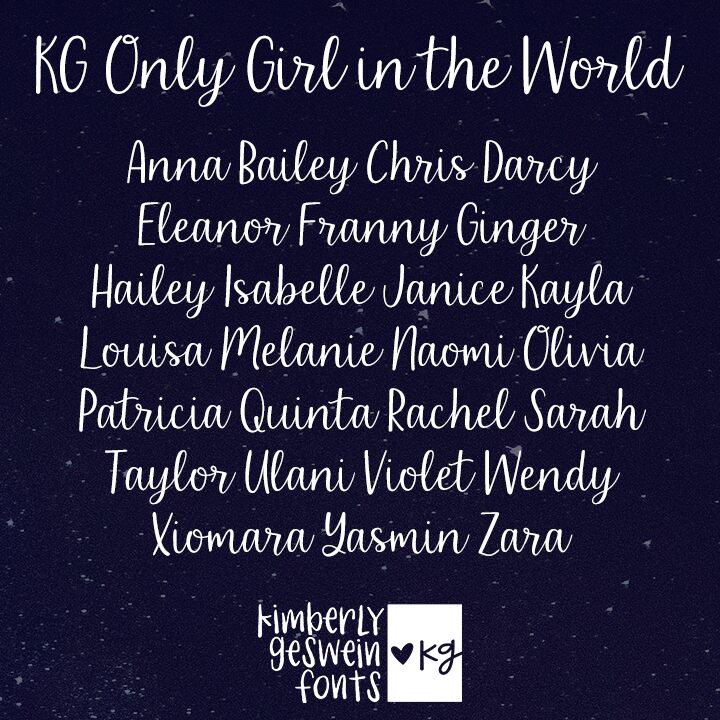
KG Only Girl in the World font family is a free handwritten duo by Kimberly Geswein. The fonts have a modern script style that gives them an elegant, personalized, and flowing look. Dynamic, fashionable, informal, and artistic, they carry natural shapes, visual balance, and friendly approachable vibes suitable for plenty of graphic design projects.
Great for use in poster designs, the valuable font works well in branding designs, visual identity designs, blogs, e-commerce websites, social media covers, and print material design. Use it to design typography-centric book covers, CD covers, greeting cards, or whatever you desire.